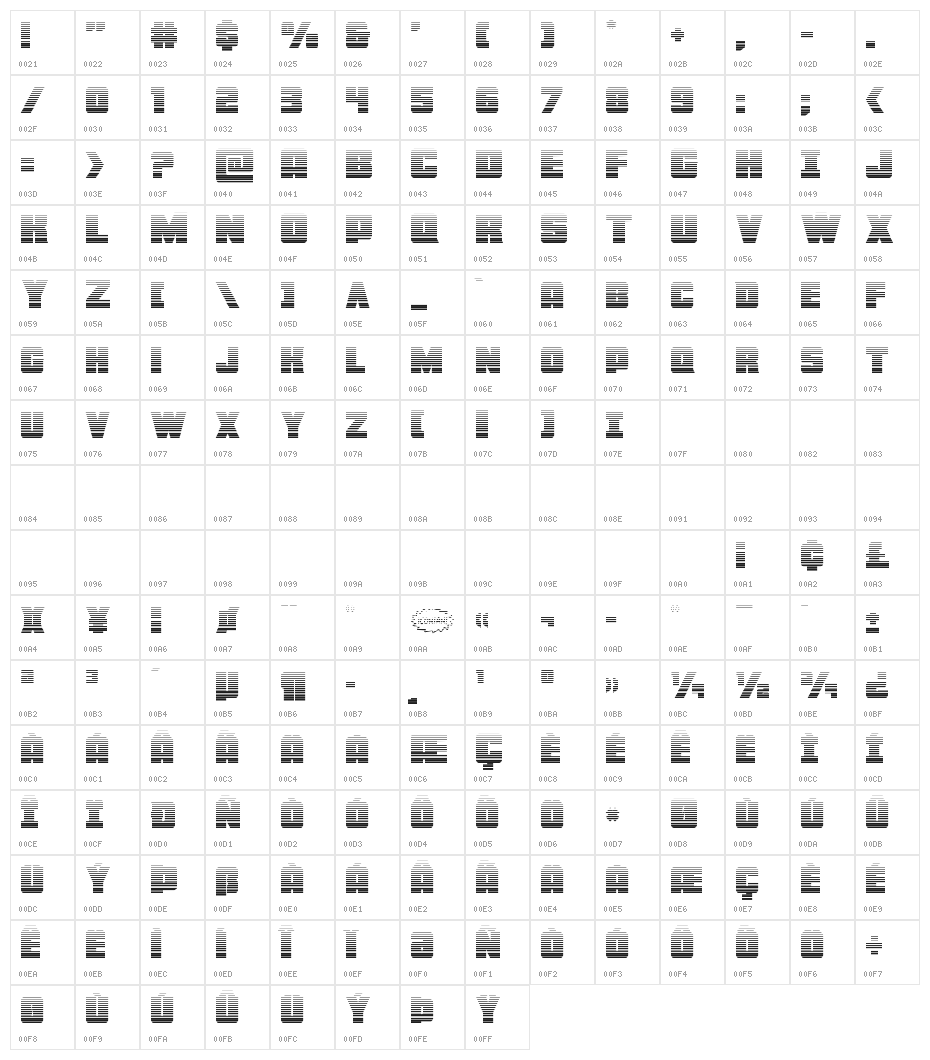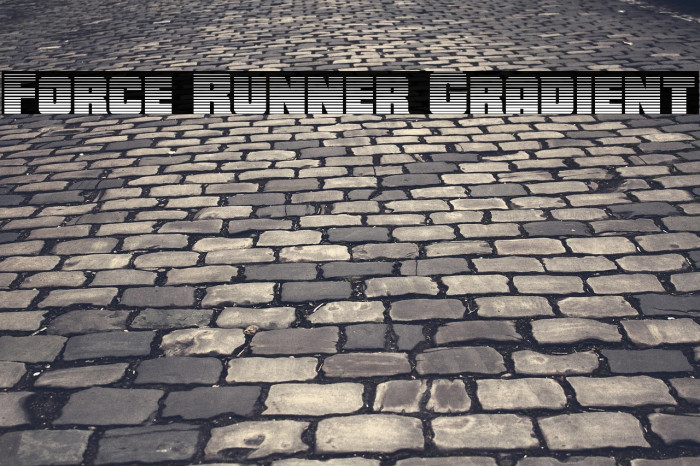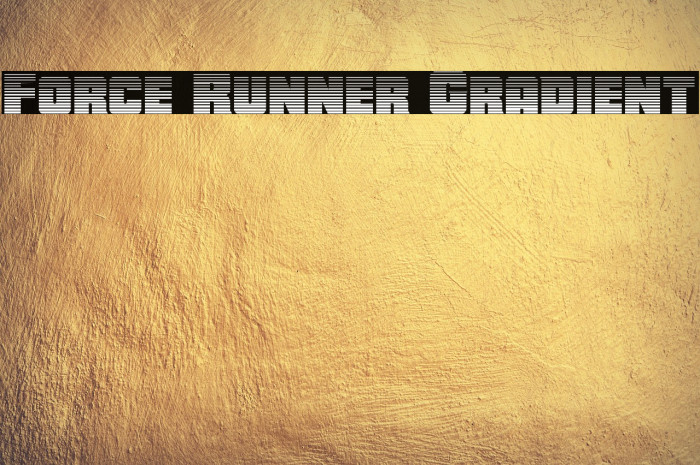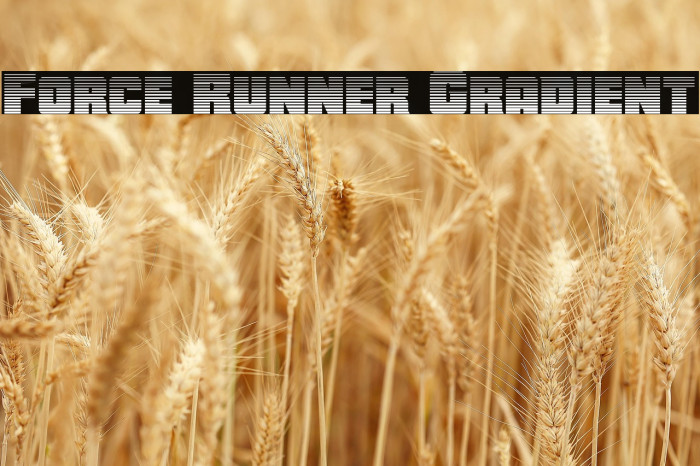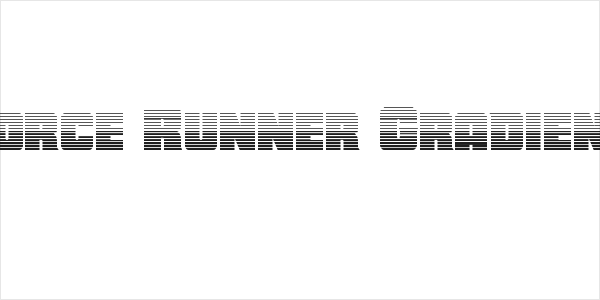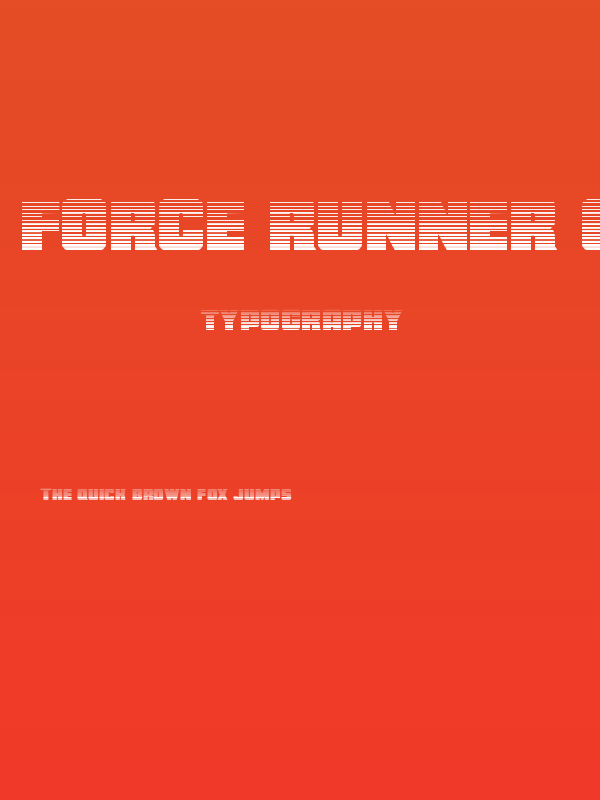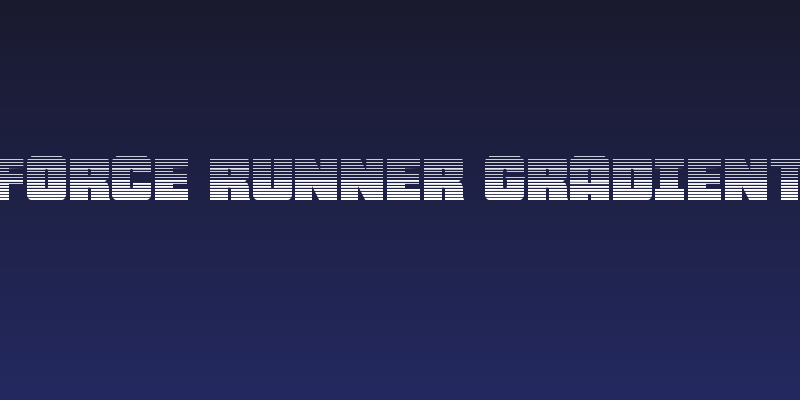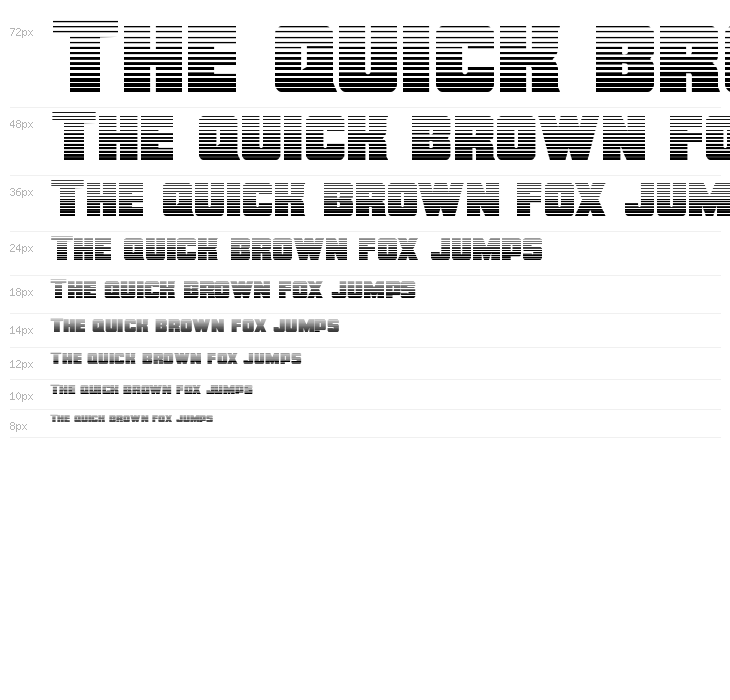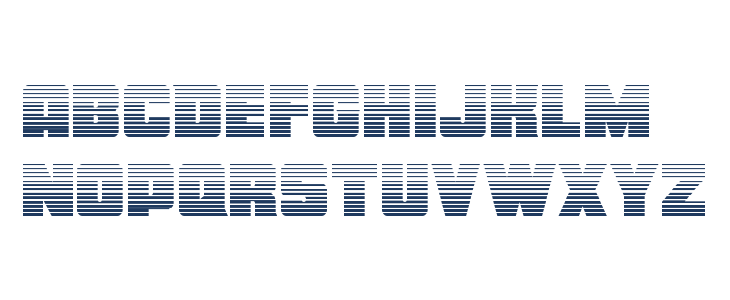
Force Runner Gradient Font
Force Runner Gradient Description
This font features a bold, futuristic design with a distinctive gradient effect created by horizontal lines. The characters are wide and blocky, giving a strong and impactful appearance. The uppercase and lowercase letters maintain a consistent style, with the gradient lines providing a sense of movement and dynamism. The numbers and special characters are equally bold, ensuring uniformity across all text elements. This font is ideal for projects that require a modern and edgy look, such as technology branding, sports team logos, or sci-fi themed designs.
| Width | Expanded |
| Use Case | Logos, Headlines, Posters |
| Proposed Projects | Ideal for technology branding, sports team logos, sci-fi themed designs, and modern advertising. |